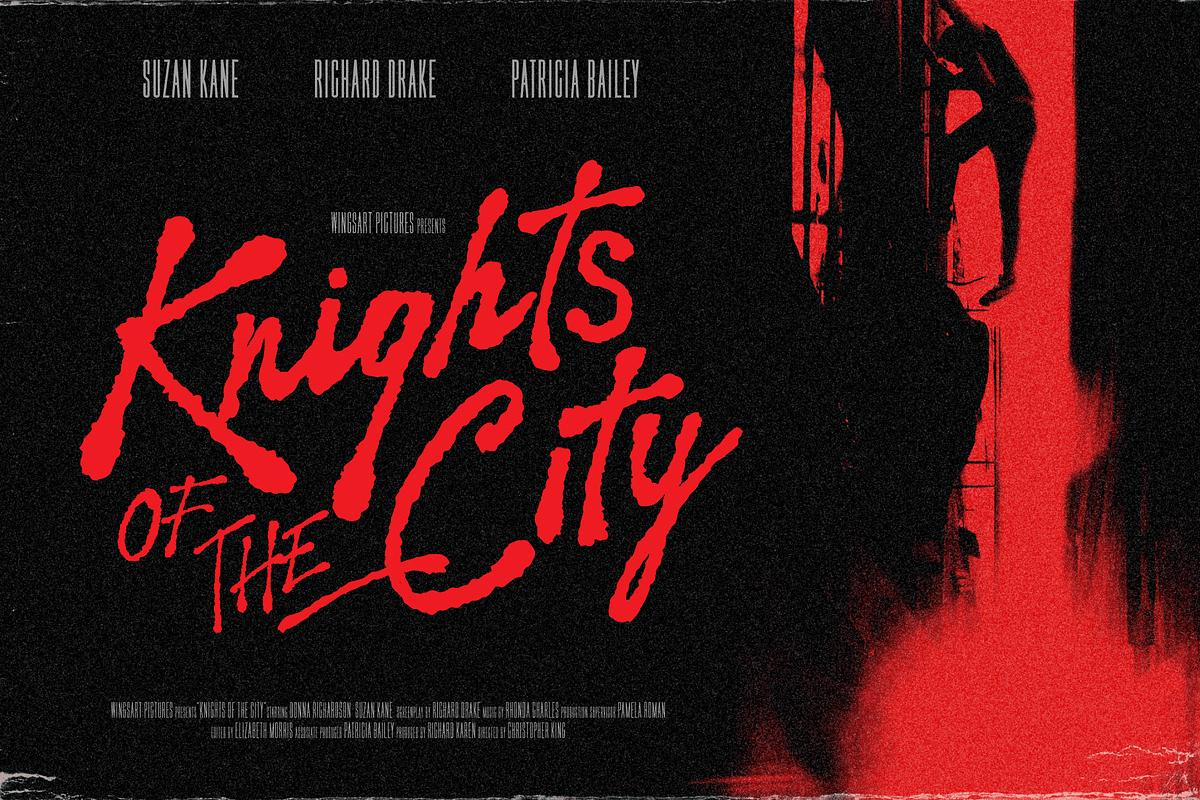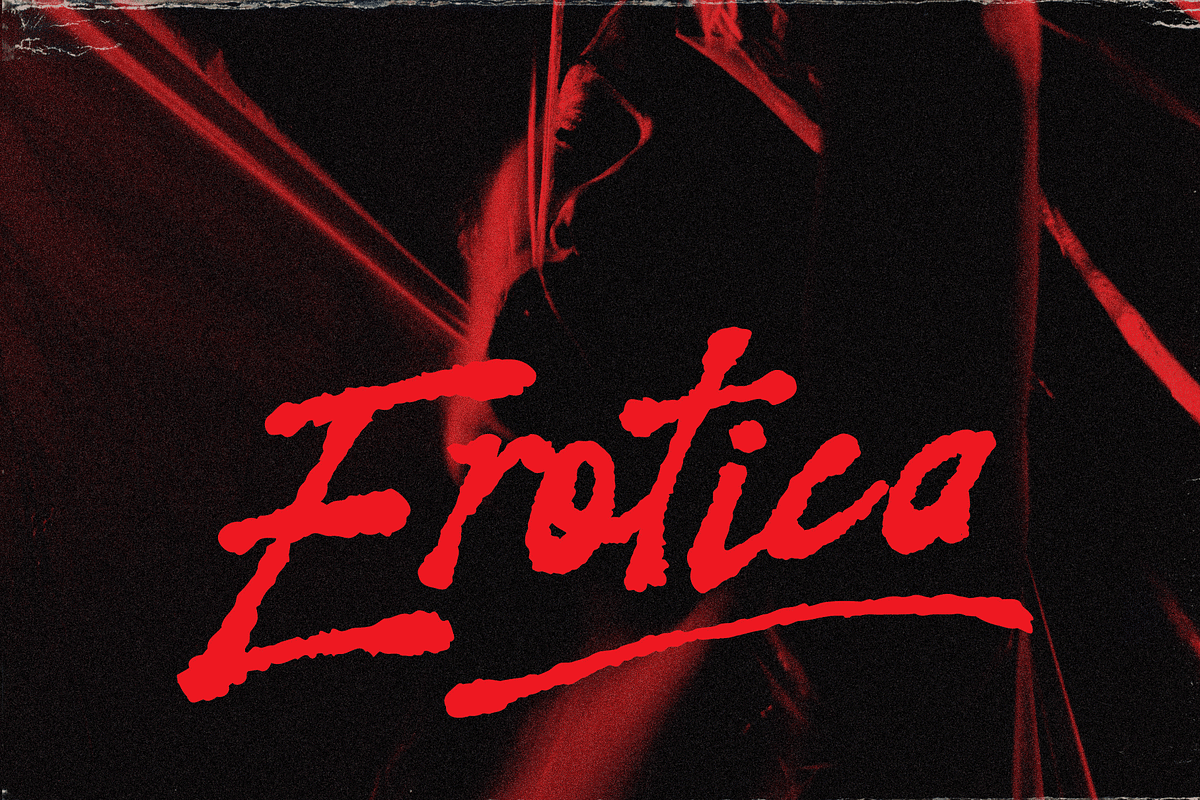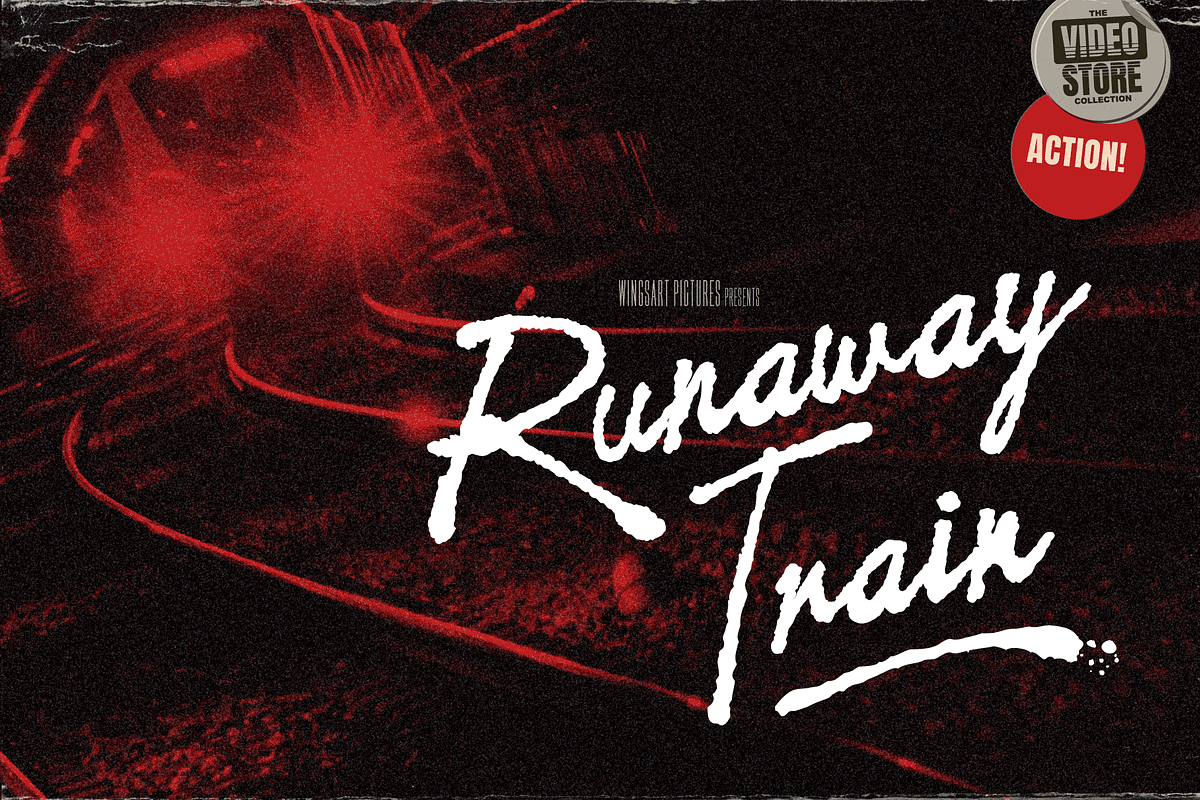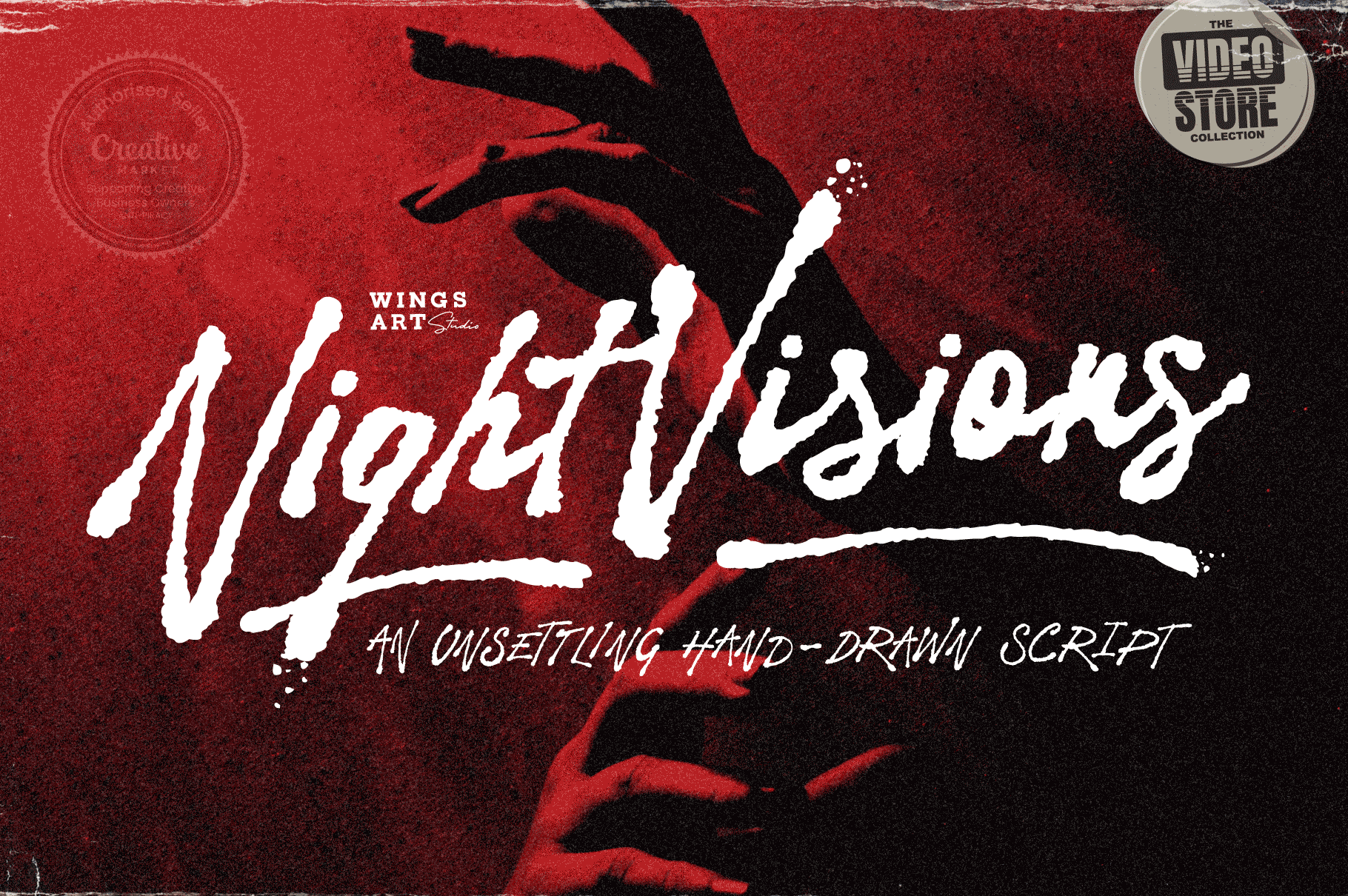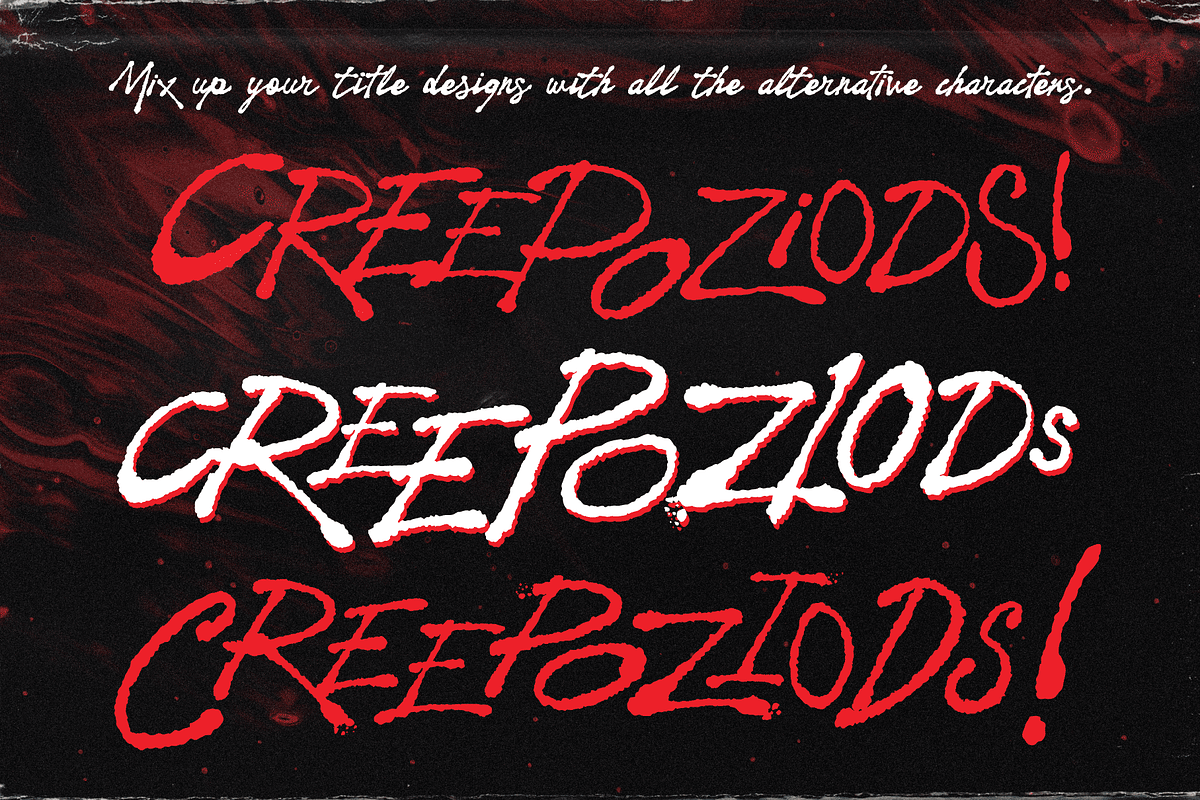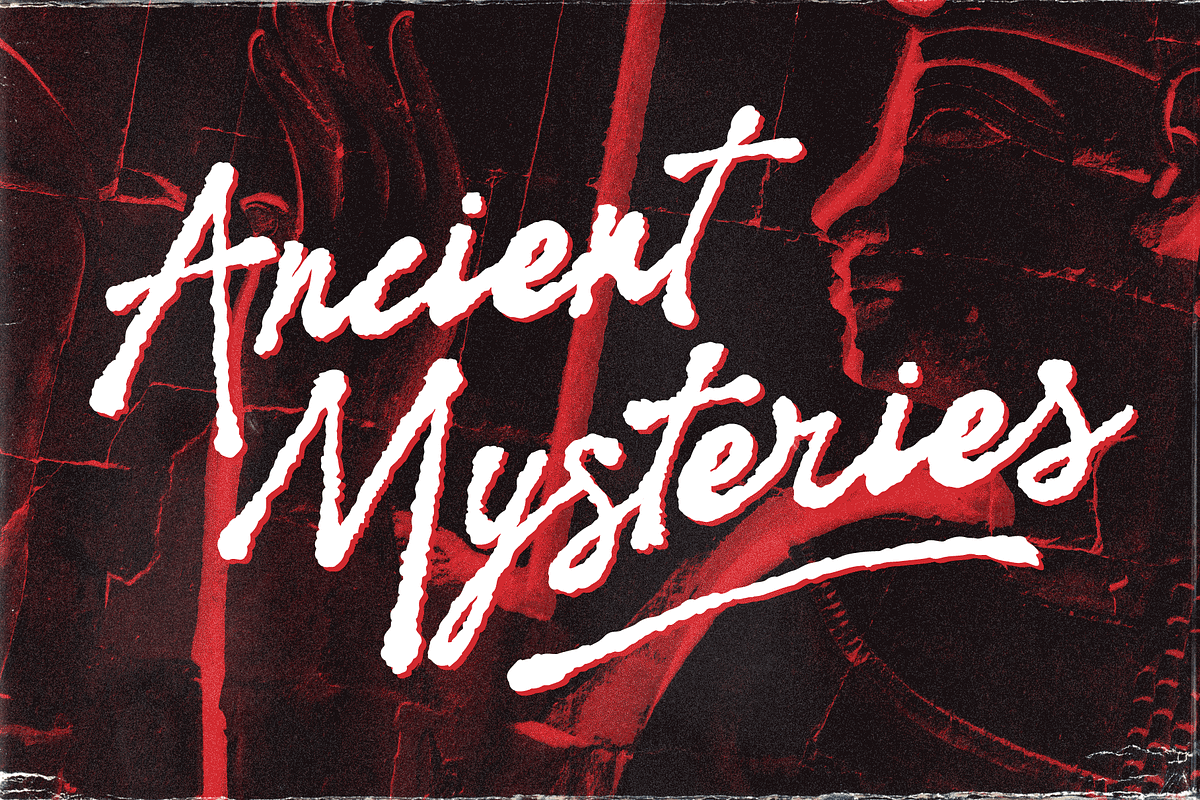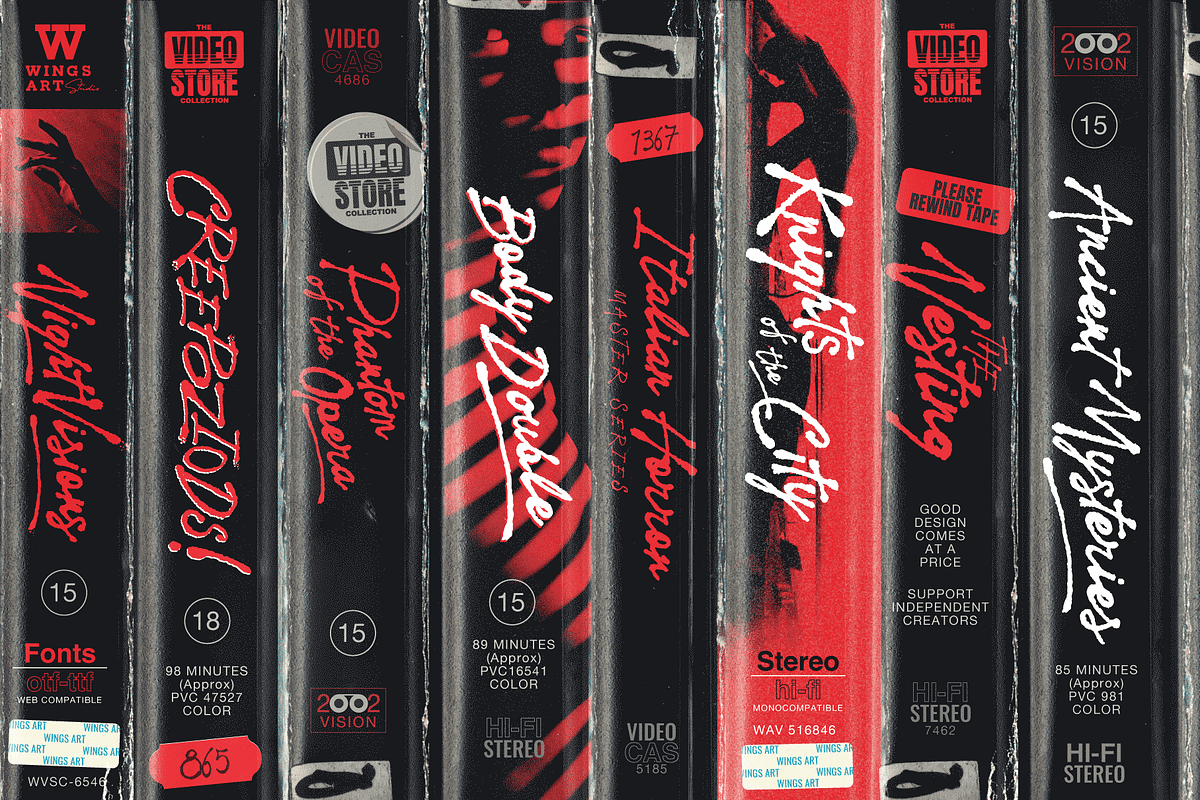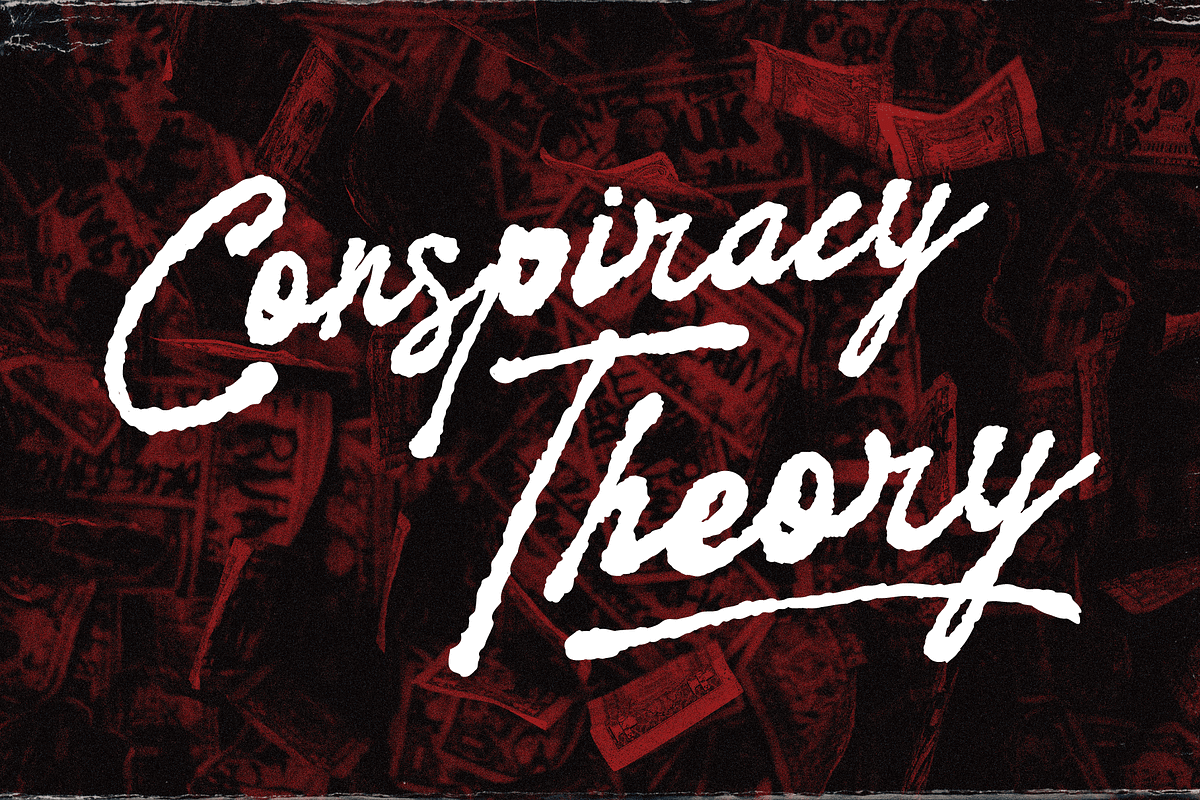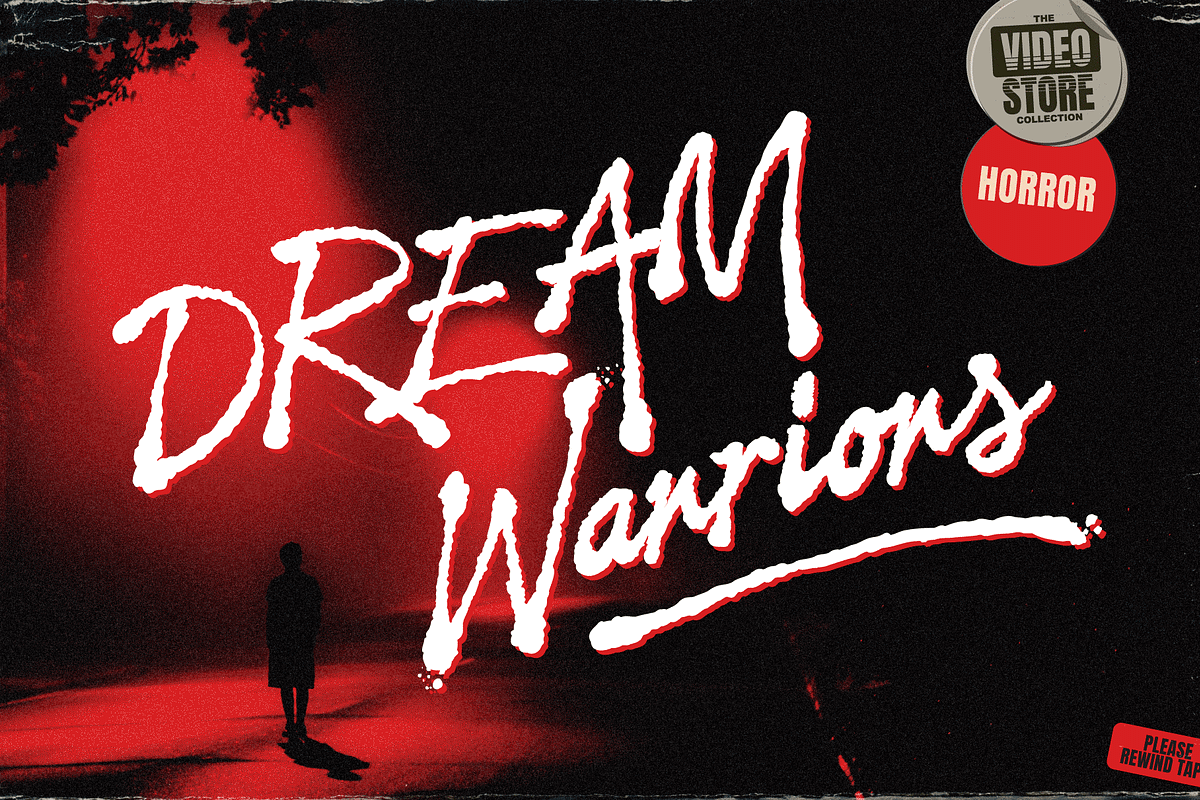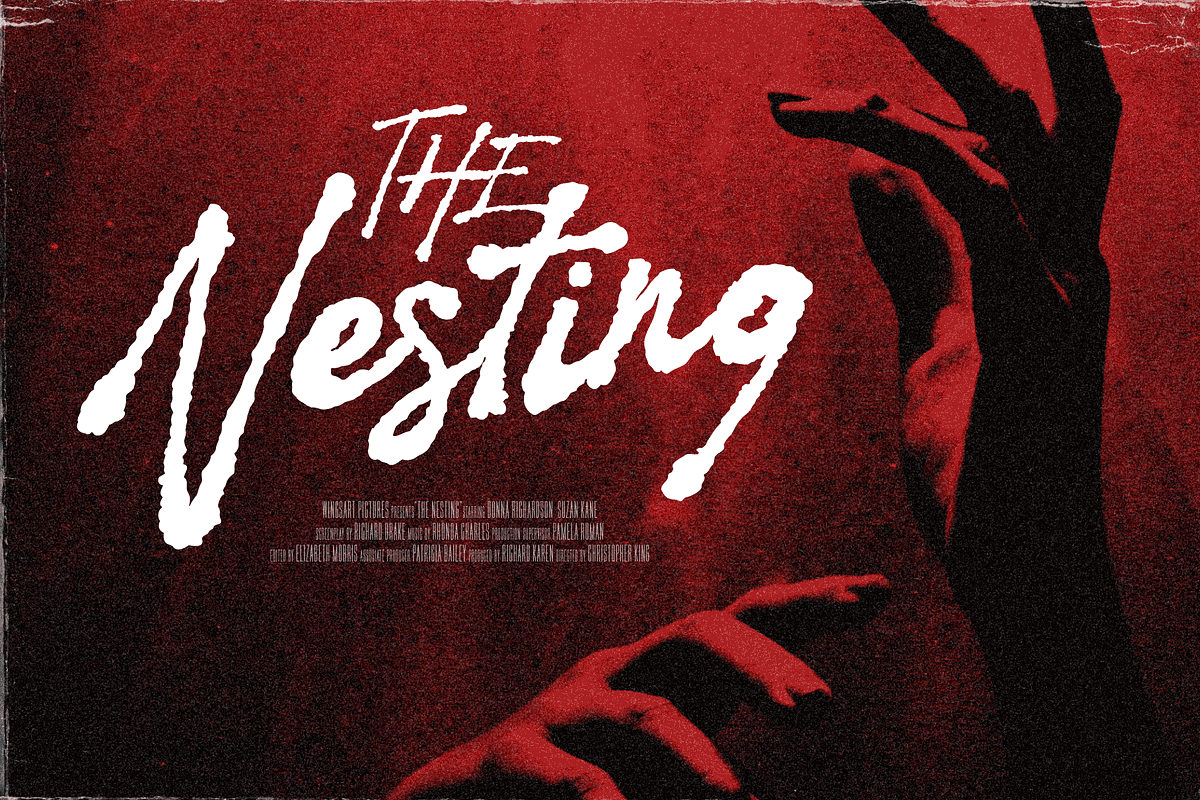
Night Visions: Brush Script Font
An Unsettling Brush Script for Horror and Thriller Movie Titles
Night Visions is a hand-drawn script font with a loose style typical of late night horror and thriller movie posters. It’s designed to look as though ink has been laid with the nervous flick of the artists brush, giving a random, imperfect, but elegant result.
This font comes with the flowing script of the regular version or a complete set of non-script alternatives. Added to which there are additional character alternatives and special ligatures to experiment with for a truly hand-made look. Each version comes with a full set of uppercase and lowercase characters along with numerals, punctuation and language support.
I recommend this font for anyone about to design a header or title that needs an authentically hand-made look. It’s the perfect choice for movie titles or posters, album covers, comic books, t-shirts or editorials. It’s a font that rewards experimentation and offers many options for your designs. Check out the visuals for usage ideas.